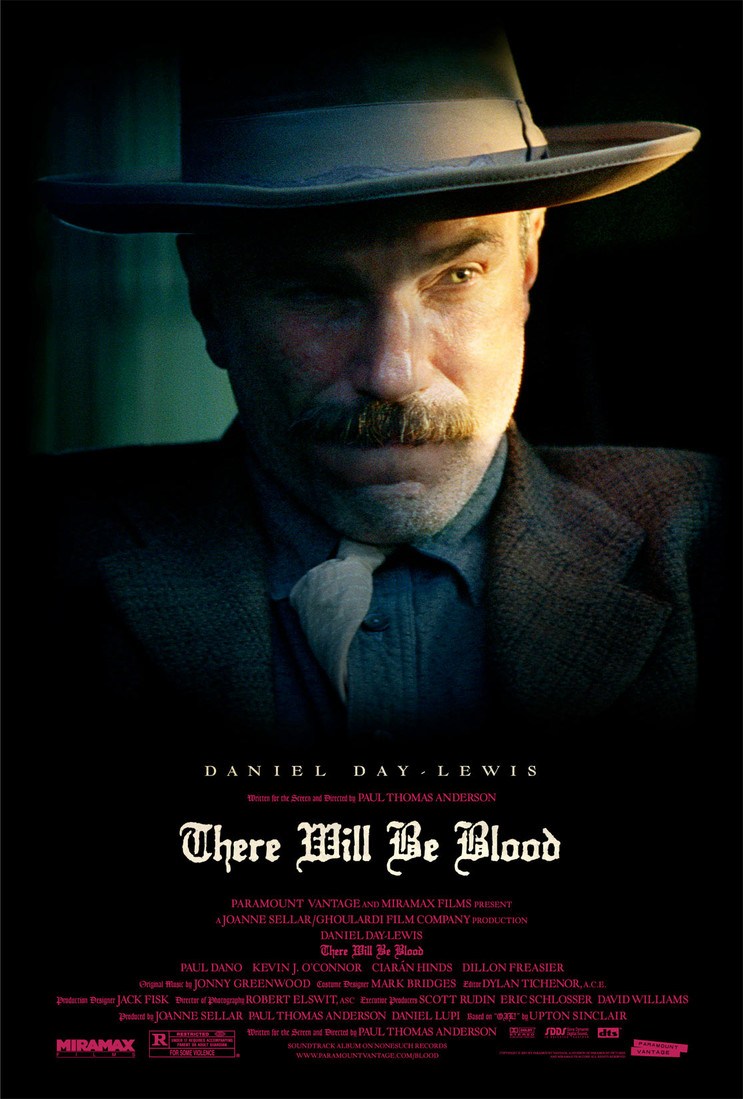
There Will Be Blood (Film) Font
DramaThere Will Be Blood is a 2007 film directed by Paul Thomas Anderson, starring Daniel Day-Lewis as a ruthless oil baron in the early 20th century, who will stop at nothing to achieve wealth and power.